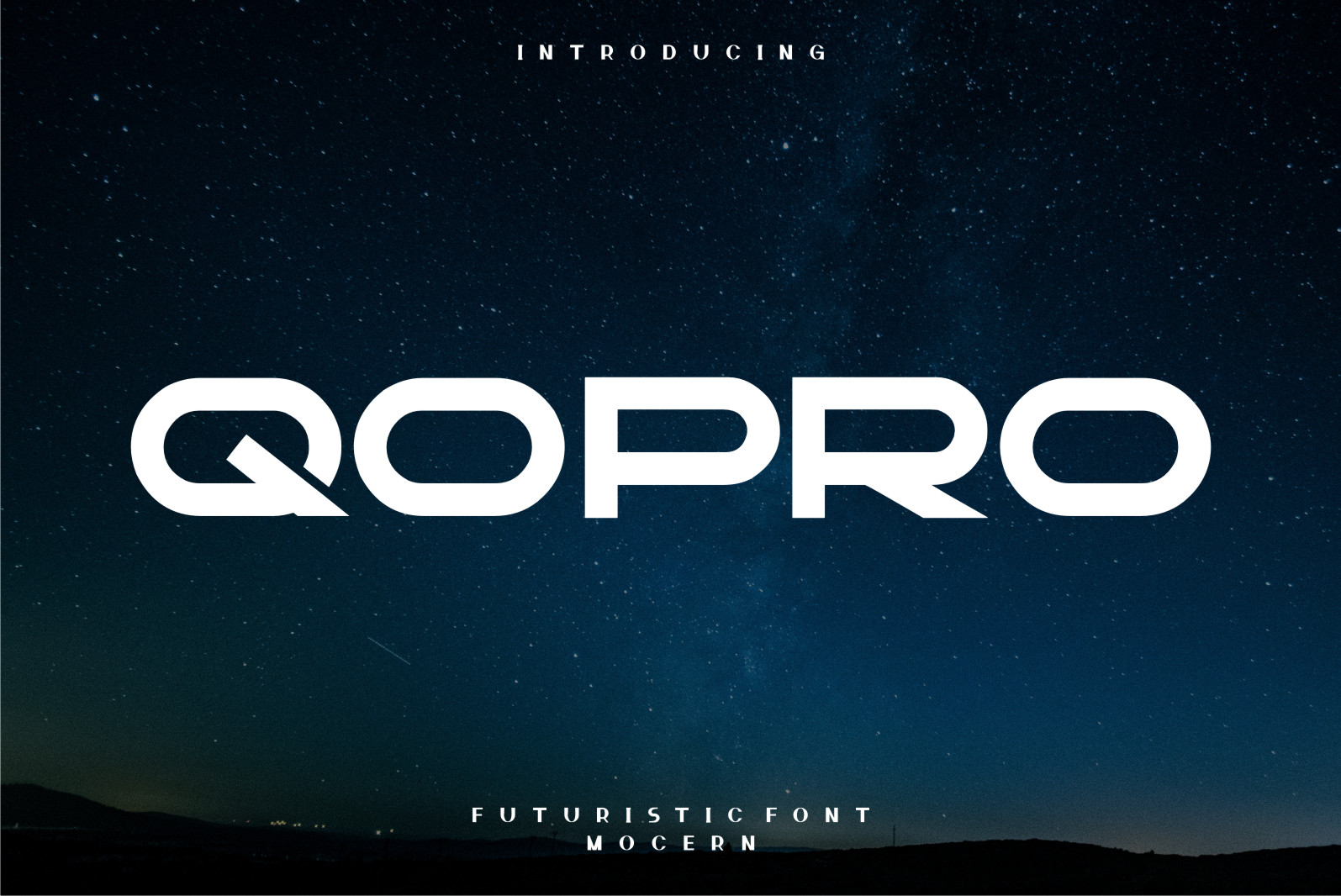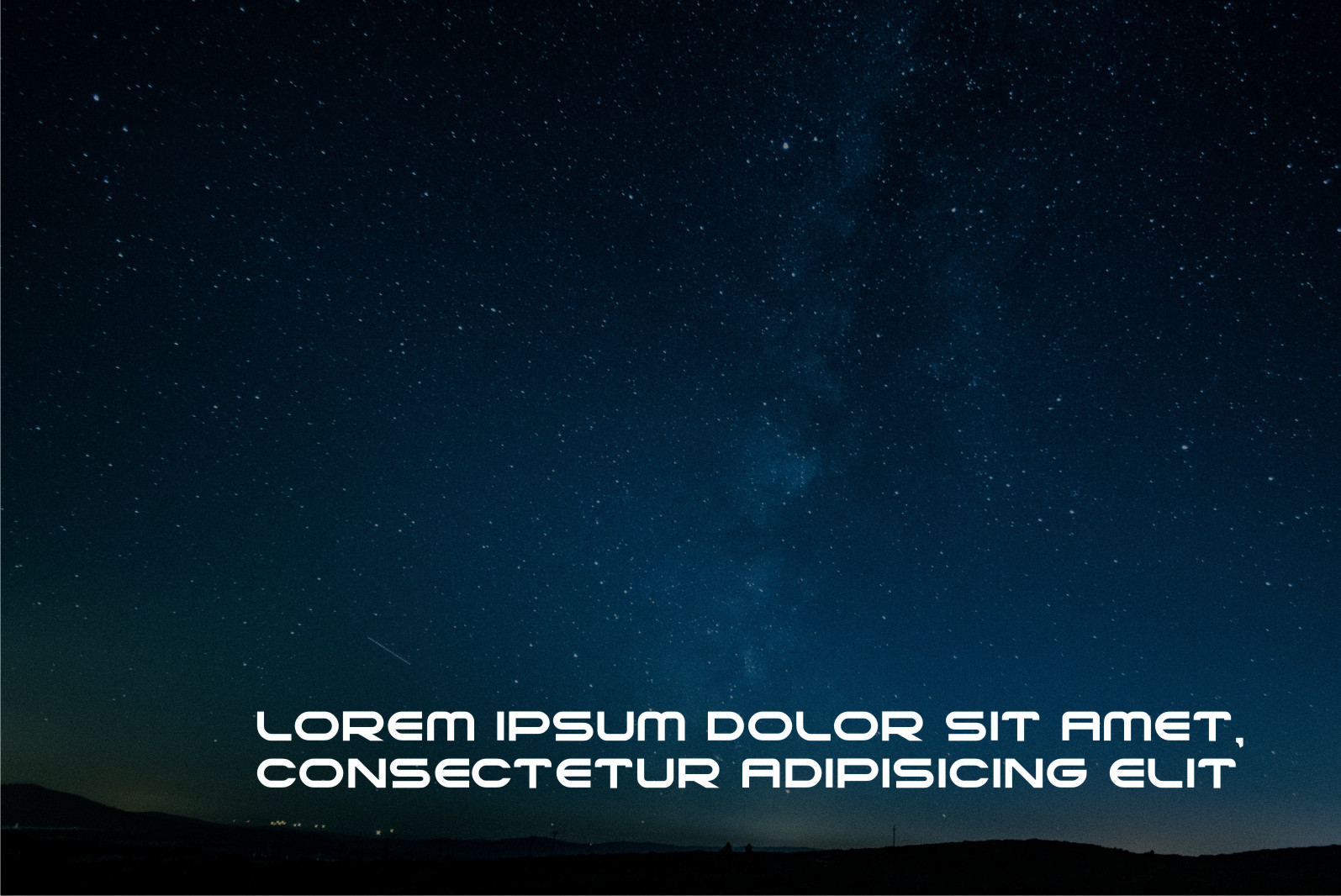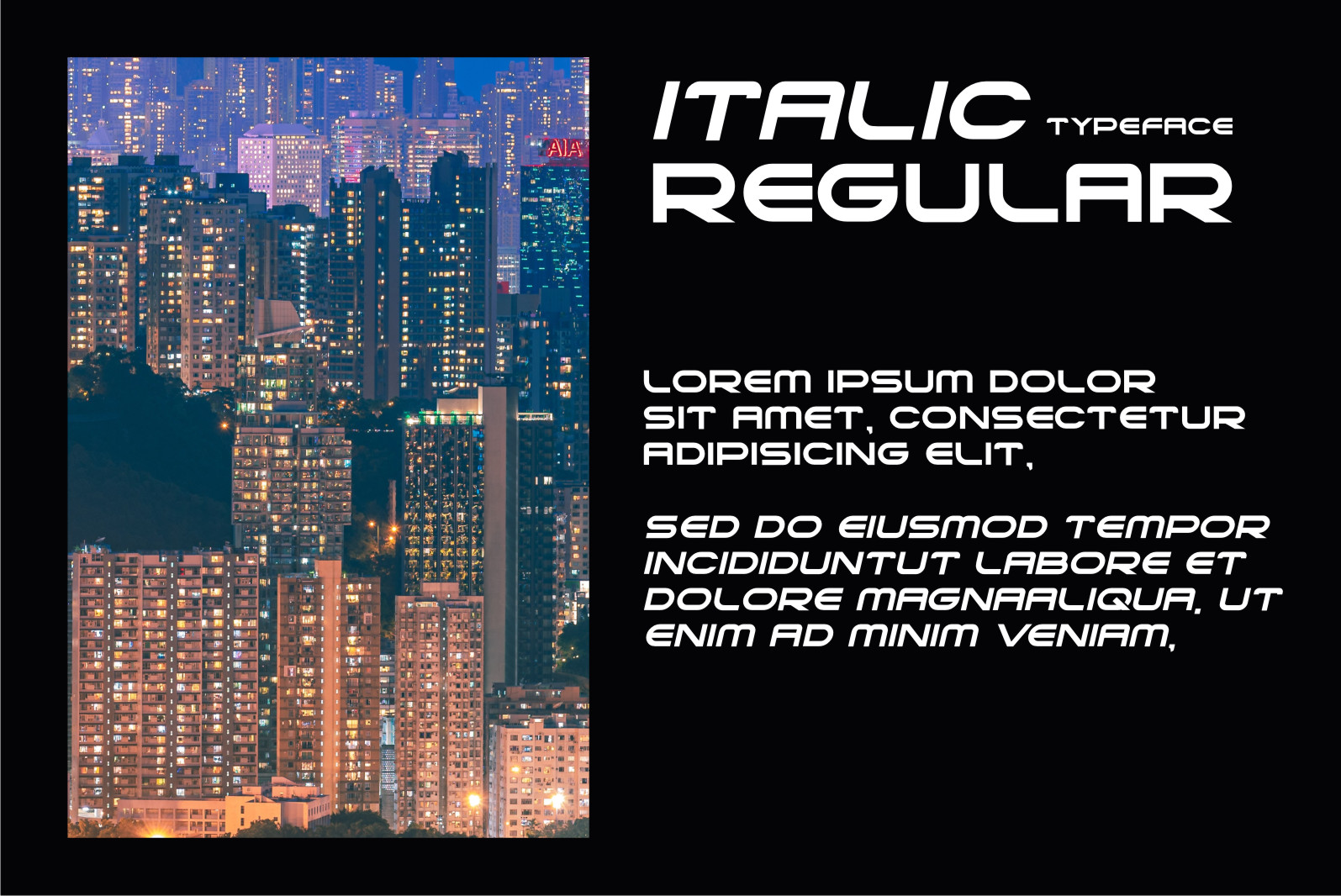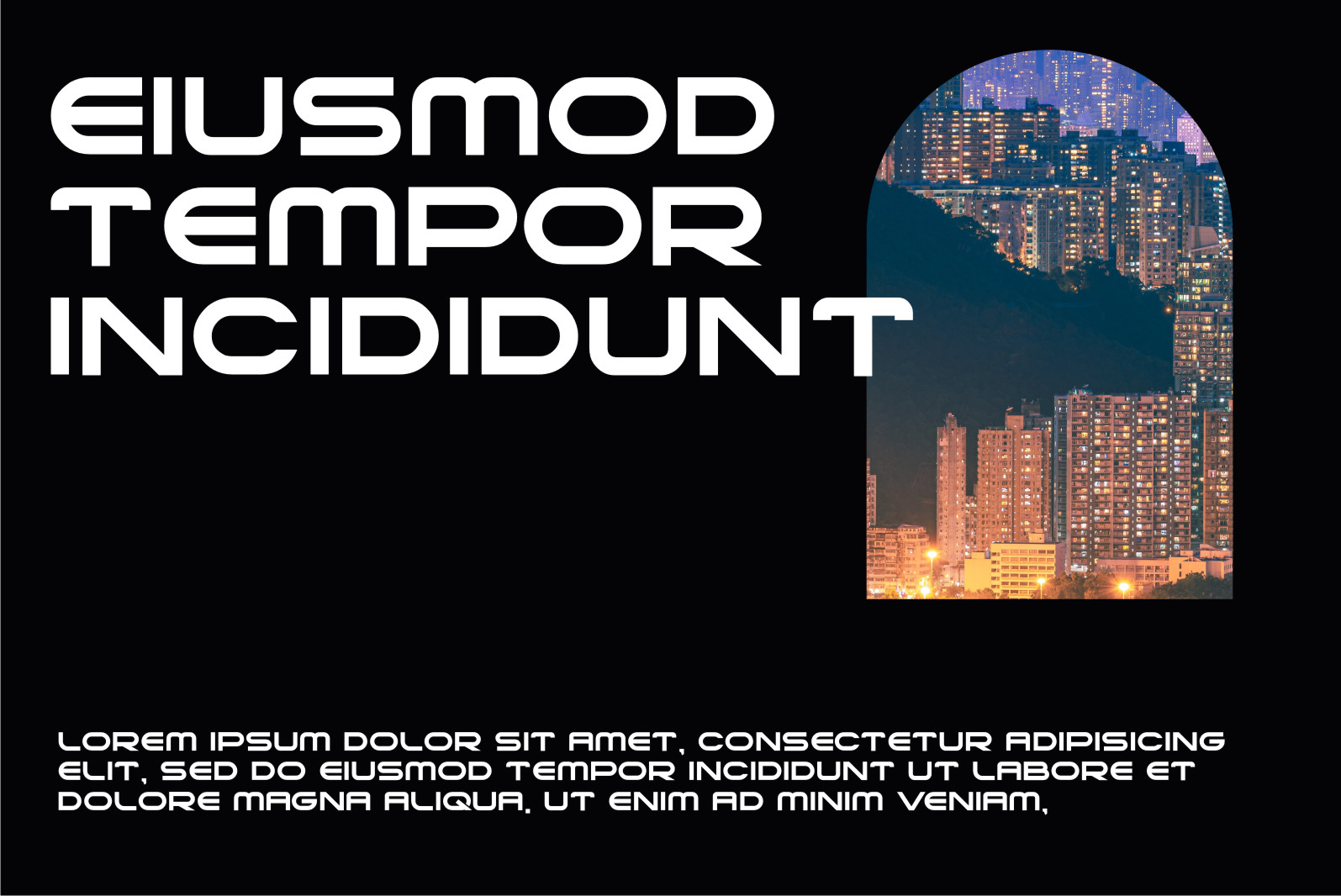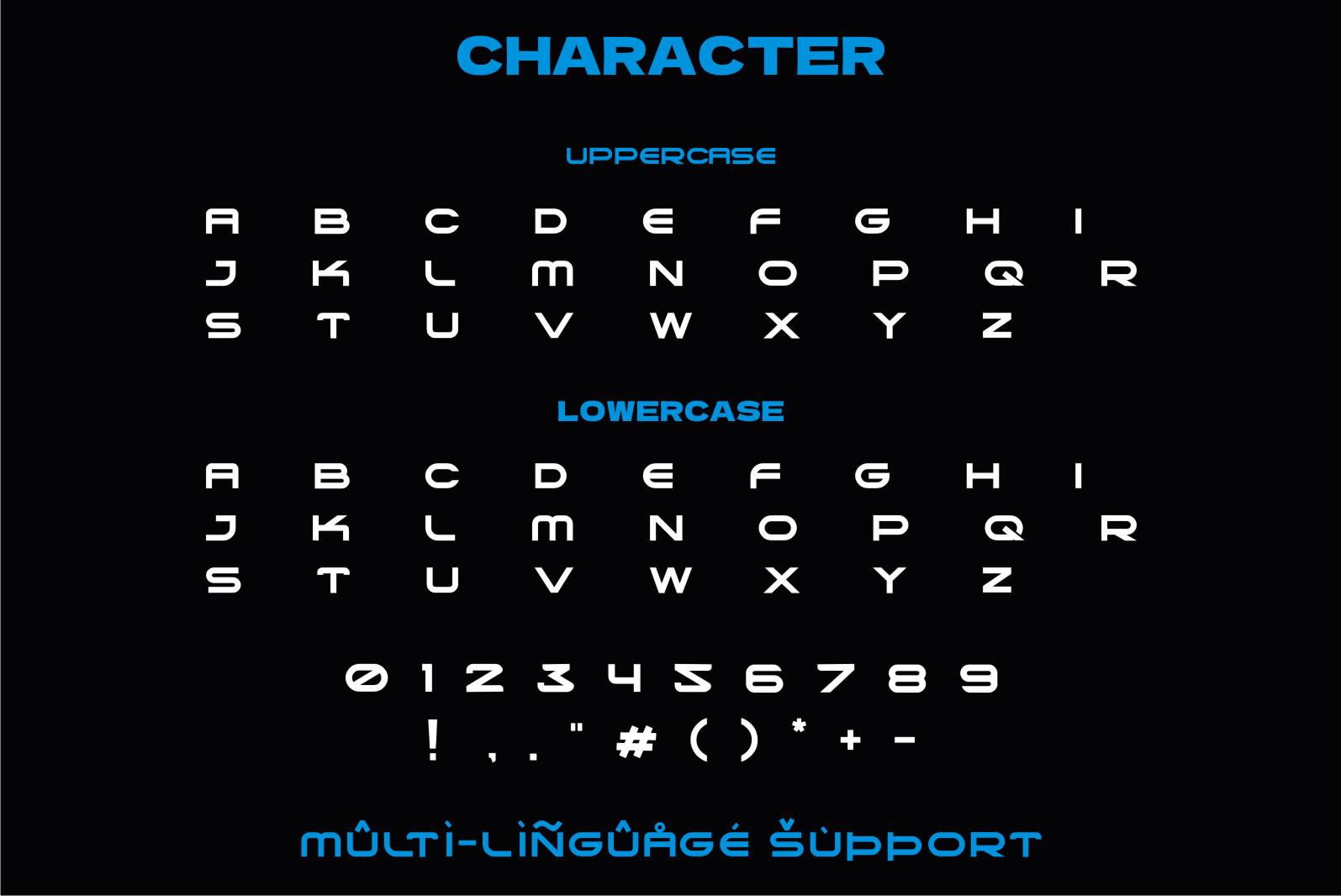
Qopro Font
Qopro Display Font
It’s a cool and modern-styled display font. This font is ideal for web designs, business cards, or pretty much anything else that requires a futuristic touch.